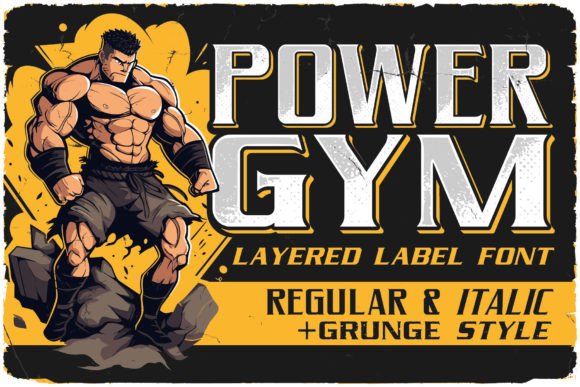
Introducing Power Gym Font: The Ultimate Choice for Bold and Sporty Designs
In the world of design, fonts play a crucial role in conveying the message and tone of a project. When it comes to creating sport-inspired designs, a bold and powerful font is essential to grab attention and make a lasting impression. This is where Power Gym Font comes in – a robust and vibrant font designed to add a dynamic touch to your projects. In this article, we’ll explore the features and benefits of Power Gym Font, and why it’s the perfect choice for a wide range of design applications.
What is Power Gym Font?
Power Gym Font is a carefully crafted font designed to exude power, energy, and a sense of dynamism. Its bold and robust design makes it perfect for projects that require a strong and attention-grabbing feel. Whether you’re working on a sports design, team logo, jersey, or any other project that needs a sporty vibe, Power Gym Font is the ideal choice.
Key Features of Power Gym Font
- Bold and Robust Design: Power Gym Font features a bold and robust design that commands attention and makes a lasting impression.
- Vibrant Touch: The font adds a vibrant touch to your sport-inspired designs, making them look energetic and dynamic.
- Versatile: Power Gym Font is suitable for a wide range of design applications, including sports design, team logos, jerseys, leagues, movies, documentaries, films, posters, games, book covers, headlines, titles, and more.
- Easily Readable: Despite its bold design, Power Gym Font is easily readable, making it perfect for use in various design projects.
Benefits of Using Power Gym Font
Using Power Gym Font in your design projects offers several benefits. Here are a few:
- Grabs Attention: The bold and robust design of Power Gym Font grabs attention and makes a lasting impression on your audience.
- Conveys Energy and Dynamism: The font’s vibrant touch conveys energy and dynamism, making it perfect for sport-inspired designs.
- Versatile: Power Gym Font is versatile and can be used in various design applications, saving you time and effort in searching for different fonts for different projects.
- Enhances Brand Identity: Using Power Gym Font in your design projects can help enhance your brand identity and create a consistent visual language.
Use Cases for Power Gym Font
Power Gym Font is suitable for a wide range of design applications. Here are some use cases:
- Sports Design: Use Power Gym Font to create bold and dynamic sports designs, such as team logos, jerseys, and league branding.
- Movie and Documentary Titles: The font’s bold and robust design makes it perfect for use in movie and documentary titles.
- Film and Poster Design: Power Gym Font can be used to create eye-catching film posters and title designs.
- Game and Book Cover Design: The font’s vibrant touch makes it suitable for use in game and book cover design.
- Headlines and Titles: Power Gym Font can be used to create bold and attention-grabbing headlines and titles for various design projects.
Tips for Using Power Gym Font
Here are some tips for using Power Gym Font effectively in your design projects:
- Use it Boldly: Power Gym Font is designed to be used boldly, so don’t be afraid to experiment with different font sizes and styles.
- Pair it with Other Fonts: The font can be paired with other fonts to create a unique and visually appealing design.
- Experiment with Colors: Power Gym Font looks great in different colors, so experiment with different color schemes to find the one that works best for your design.
In conclusion, Power Gym Font is a robust and vibrant font designed to add a dynamic touch to your sport-inspired designs. Its bold and robust design makes it perfect for a wide range of design applications, including sports design, team logos, jerseys, leagues, movies, documentaries, films, posters, games, book covers, headlines, titles, and more. With its versatility, readability, and attention-grabbing design, Power Gym Font is an excellent choice for designers looking to create bold and dynamic designs.
- What is Power Gym Font?: Power Gym Font is a robust font designed to draw attention and highlight any project that requires a bold feel.
- What is Power Gym Font used for?: Power Gym Font is suitable for a wide range of design applications, including sports design, team logos, jerseys, leagues, movies, documentaries, films, posters, games, book covers, headlines, titles, and more.
- Is Power Gym Font easily readable?: Yes, despite its bold design, Power Gym Font is easily readable, making it perfect for use in various design projects.